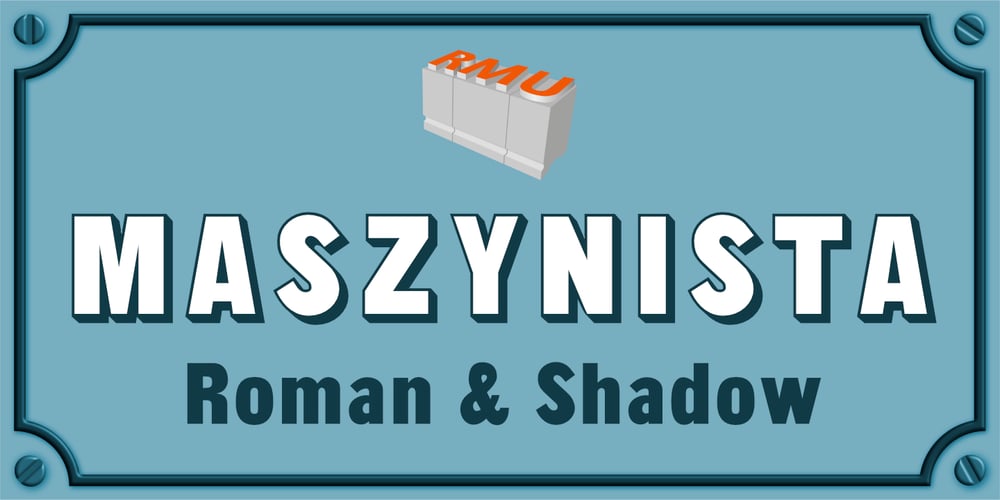
Maszynista Font Family was designed by Ralph M. Unger, Hans Karl Gustav Möhring and published by RMU. Maszynista contains 2 styles and family package options. This font family is based on the letterforms of a fin-de-siècle sans serifs, and comes in two versions – Roman and Shadow.